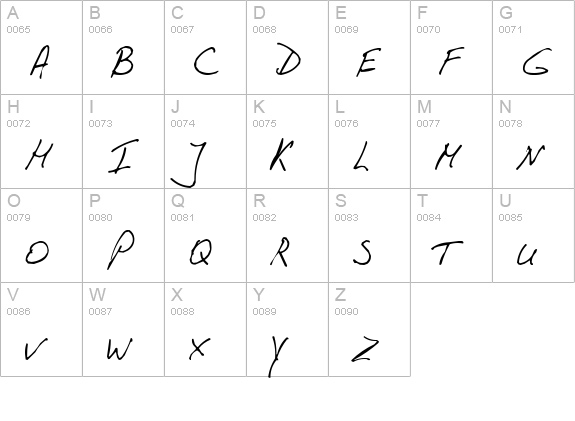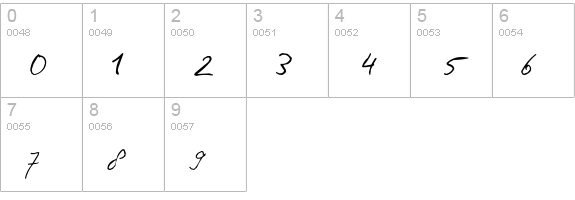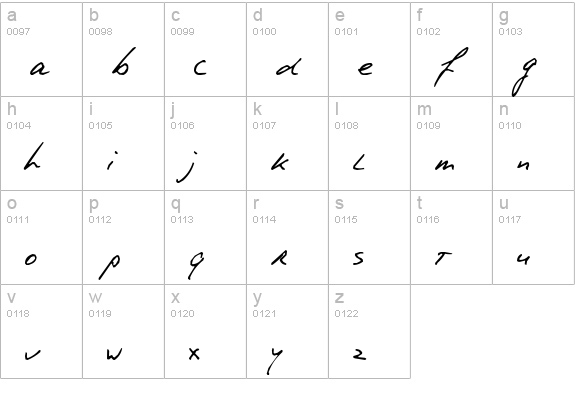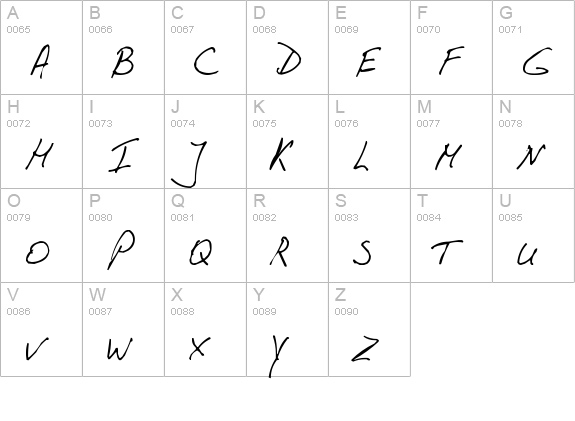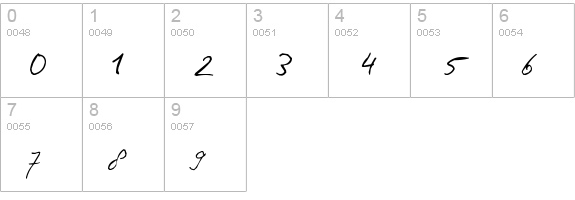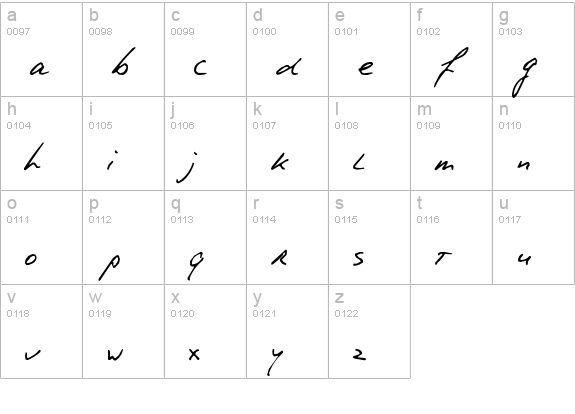
PhontPhreak's Handwriting Font Details
PhontPhreak's Handwriting font is a charming and whimsical typeface that captures the essence of handwritten notes and personal messages. With its playful curves and elegant strokes, this font adds a touch of warmth and personality to any design project. Whether you're creating invitations, greeting cards, or social media graphics, PhontPhreak's Handwriting font is sure to make your text stand out. Best of all, this delightful font is available for free download at FontsMarket.com. Embrace the beauty of handwritten style with PhontPhreak's Handwriting font and bring a personal touch to your creative endeavors.